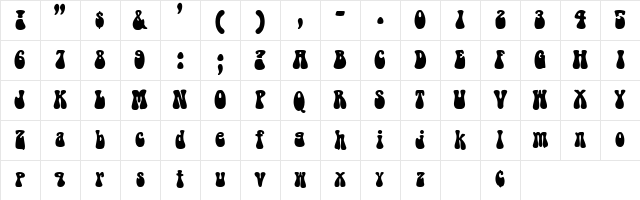
Complete BellBottom. Laser glyph index. Displaying only characters natively supported by BellBottom. Laser font.
BellBottom. is a composed and adaptable typeface that performs quietly and consistently across a wide range of design contexts.